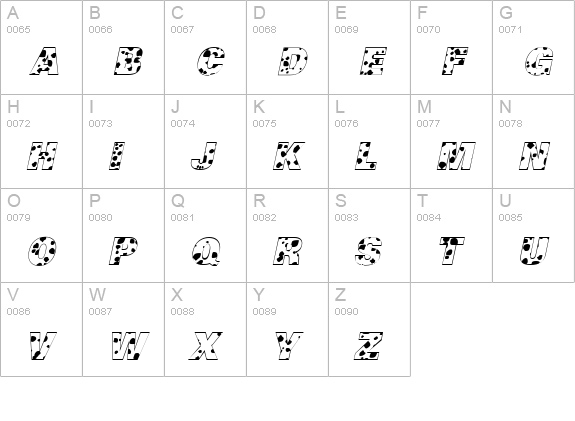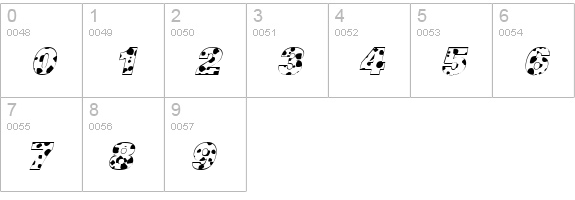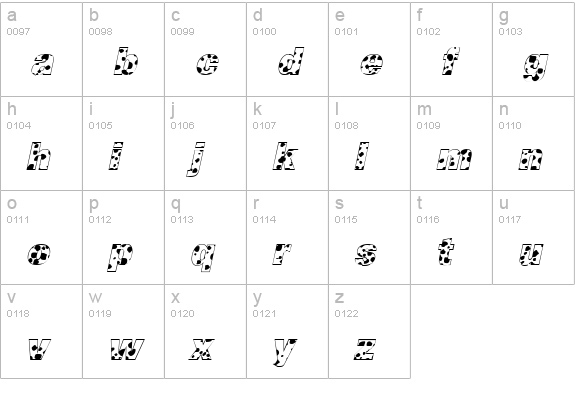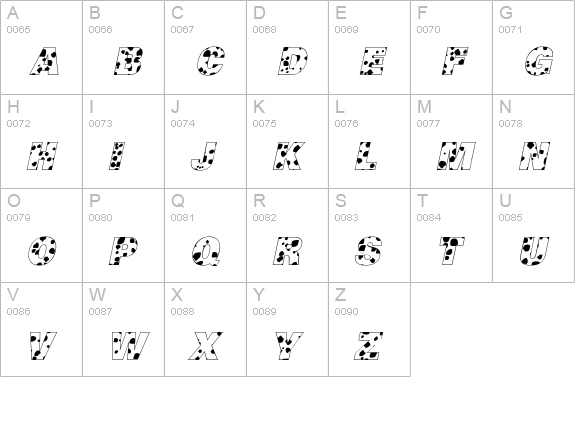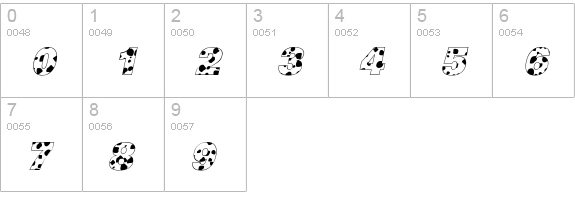
Cow-Spots Italic Font Details
Cow-Spots Italic is a distinctive, italic variant in the Cow typeface family \xE2\x80\x94 well suited to design and typography projects.
Cow-Spots Italic font is a playful and whimsical typeface that will add a touch of fun to any design project. With its unique cow-spotted pattern and slanted italic style, this font is perfect for creating eye-catching headlines, posters, and branding materials. Best of all, Cow-Spots Italic font is available for free download at FontsMarket.com. Whether you're working on a school project, a marketing campaign, or a personal creative endeavor, this font is sure to make a bold statement and grab your audience's attention. Don't miss out on the opportunity to add a touch of creativity and personality to your designs with Cow-Spots Italic font. Download it for free today and let your imagination run wild!